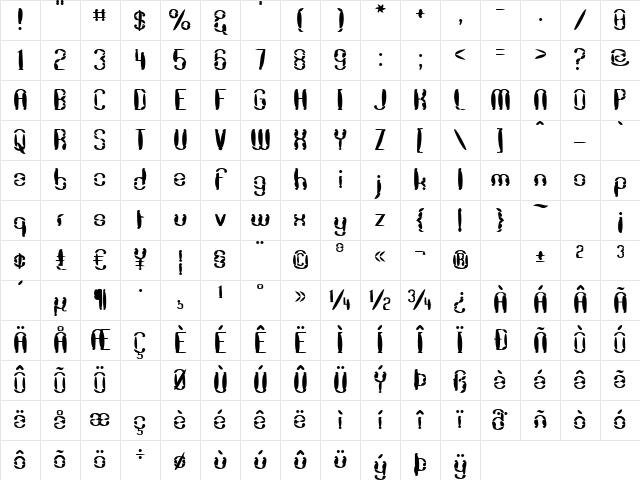
Dekon Regular Free Font
Dekon Regular
Designer: Graham Meade
Design Context for Dekon
Dekon is a composed and adaptable typeface that performs quietly and consistently across a wide range of design contexts.